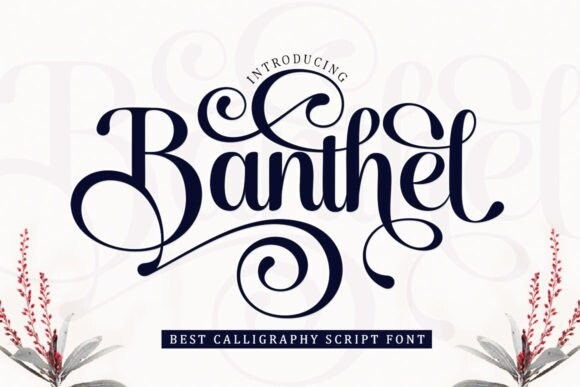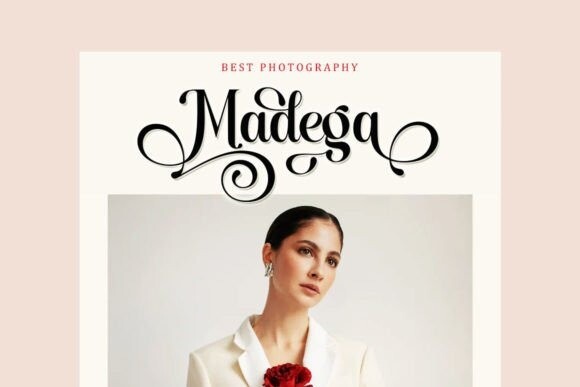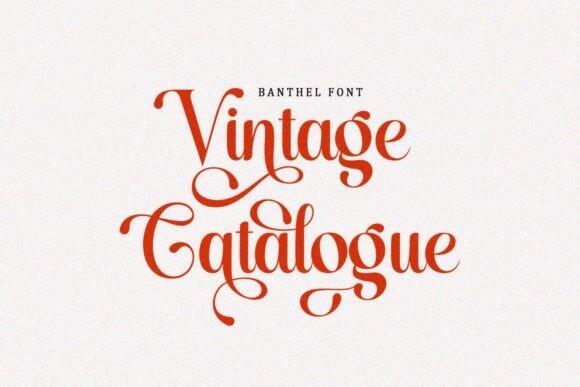
Banthel Font
Banthel Font is a modern script font featuring a classic and elegant touch. Banthel is attractive because it is sleek, clean, feminine, sensual, glamorous, simple, and very easy to read, thanks to its many beautiful letter joints.
The classic style is very suitable to be applied in various formal forms such as invitations, labels, restaurant menus, logos, fashion, makeup, stationery, novels, magazines, books, greeting cards/weddings, packaging, labels, or all kinds of advertising needs.